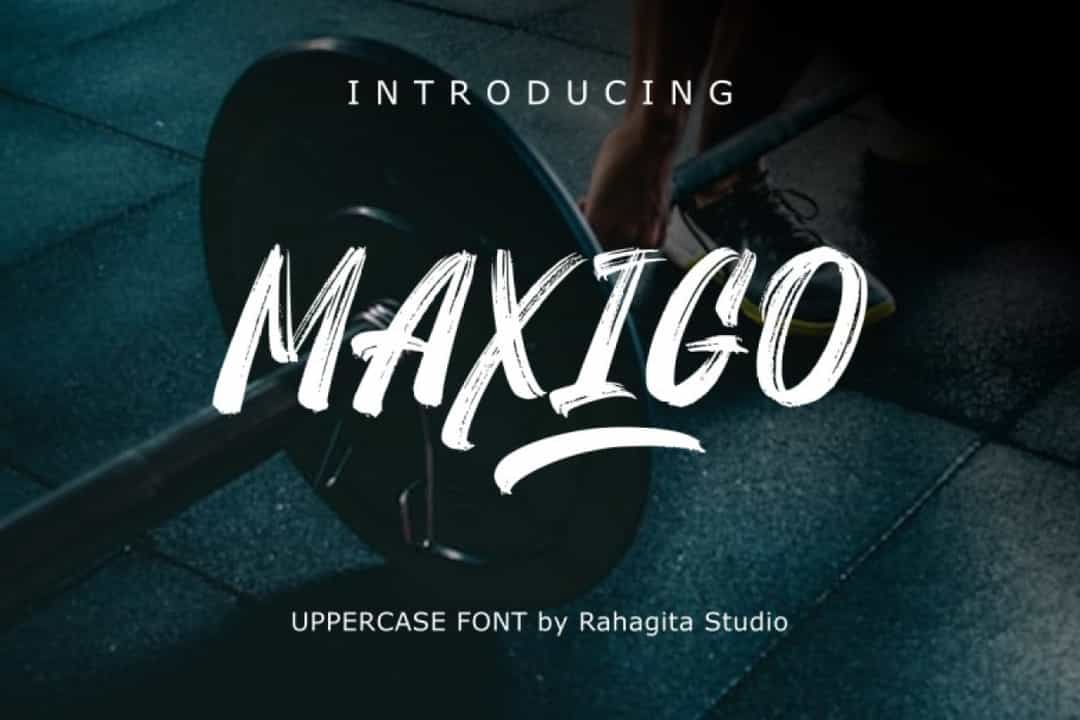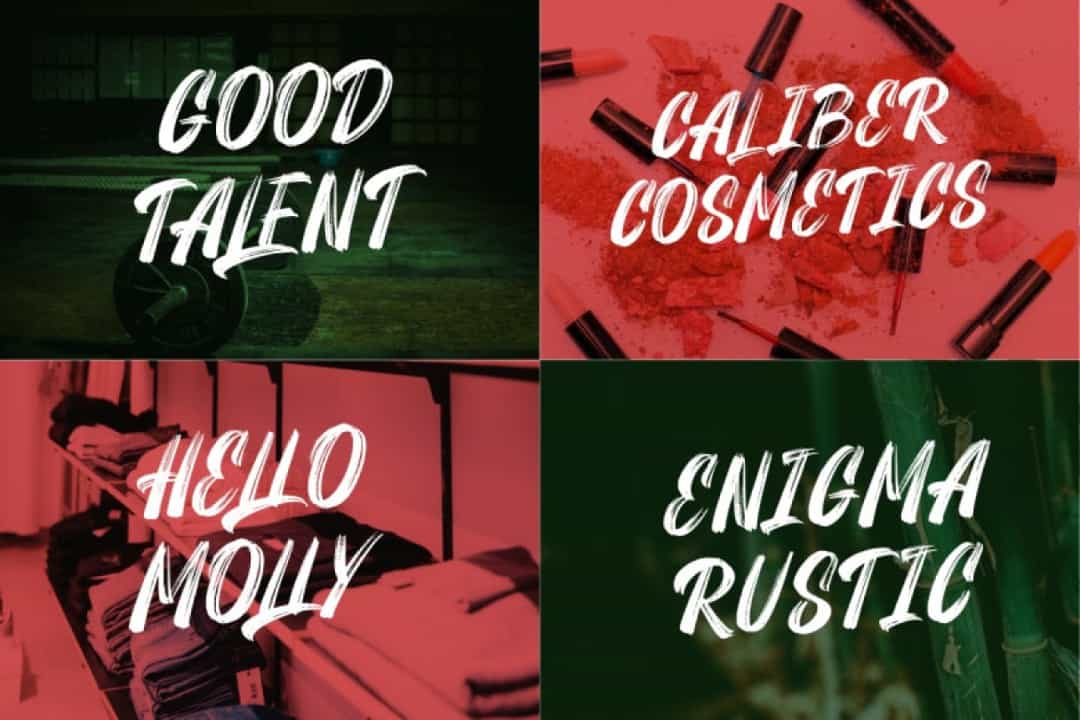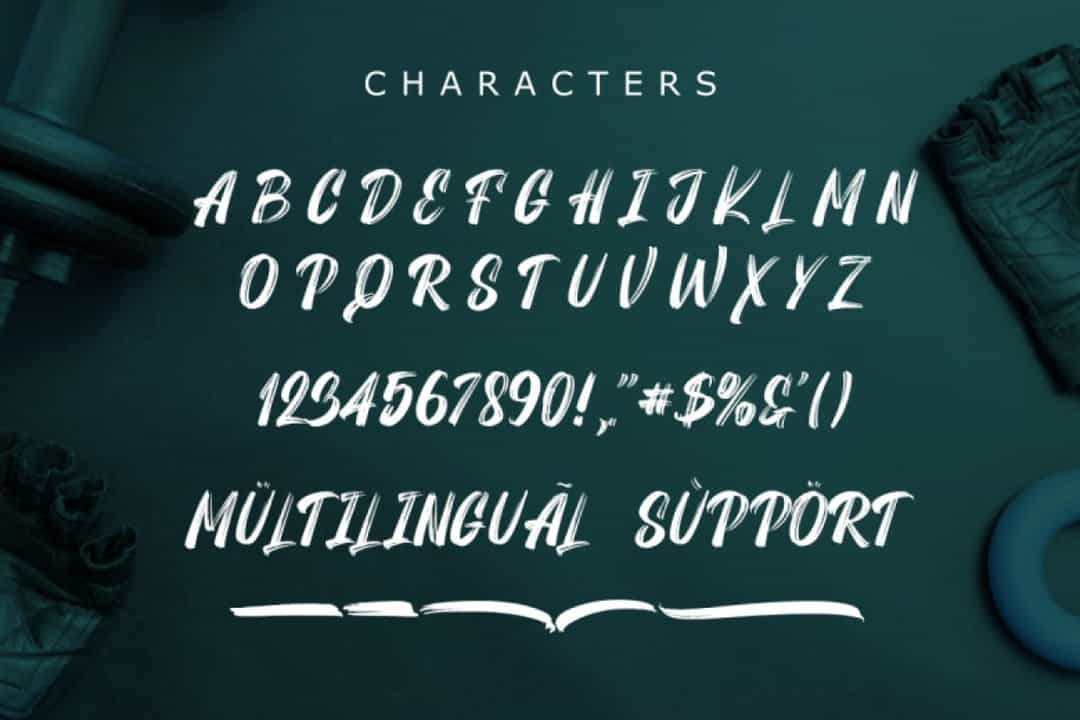
Maxigo is an exciting and vibrant brush-script font which exudes passion and imagination. Boasting powerful brush strokes and an imposing uppercase character, Maxigo brings a distinct yet contemporary style to any design project making it the ideal choice for titles, headings brandings, packaging’s, flyers and logos.